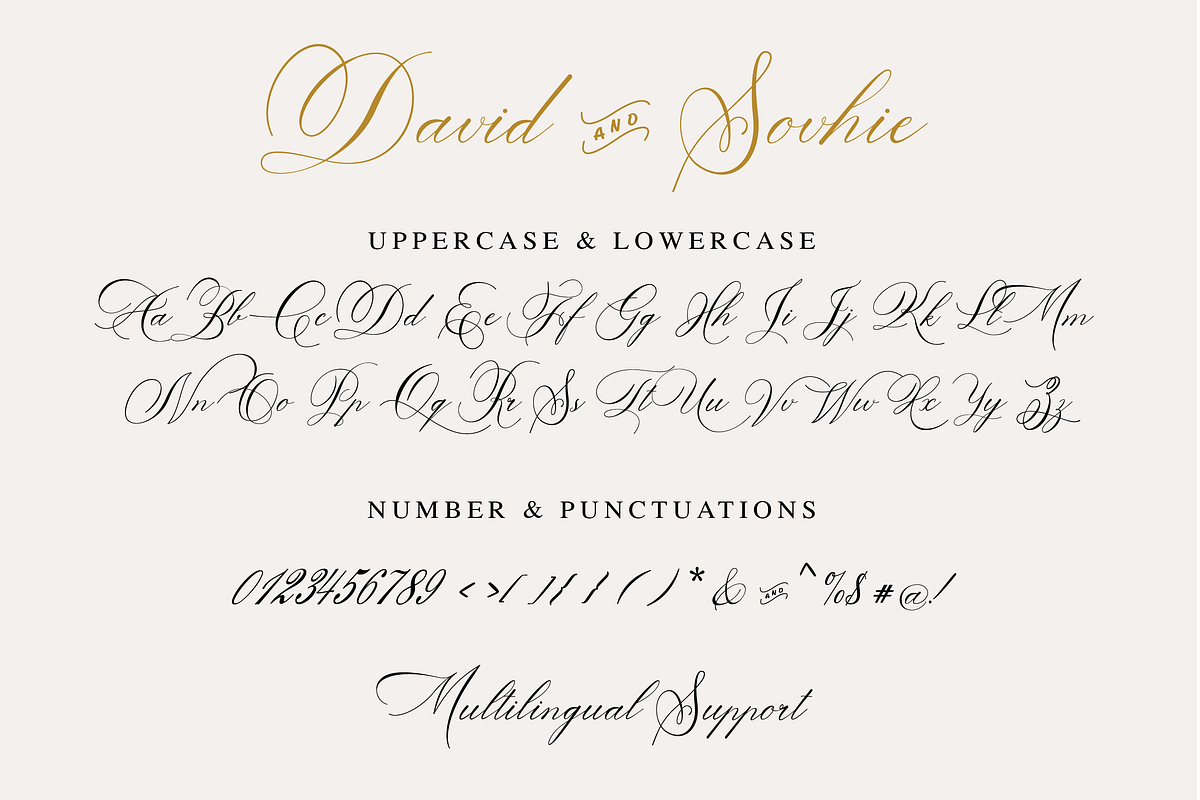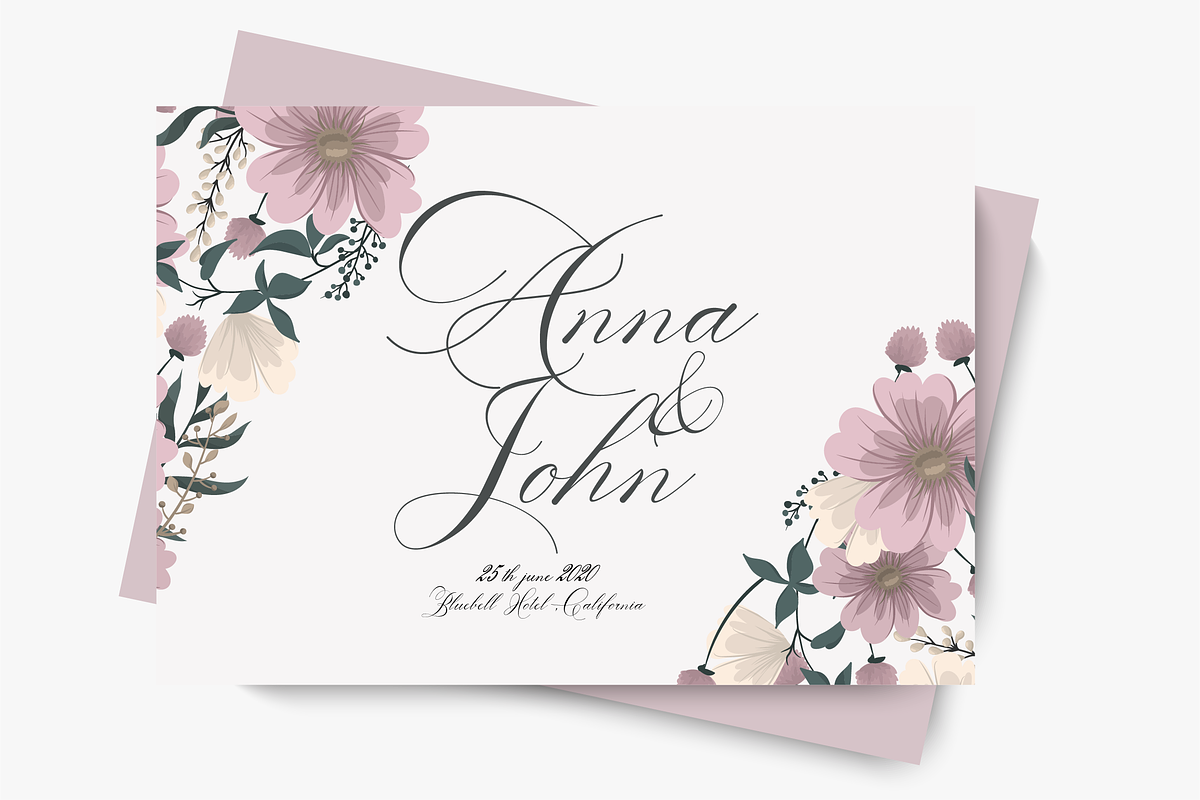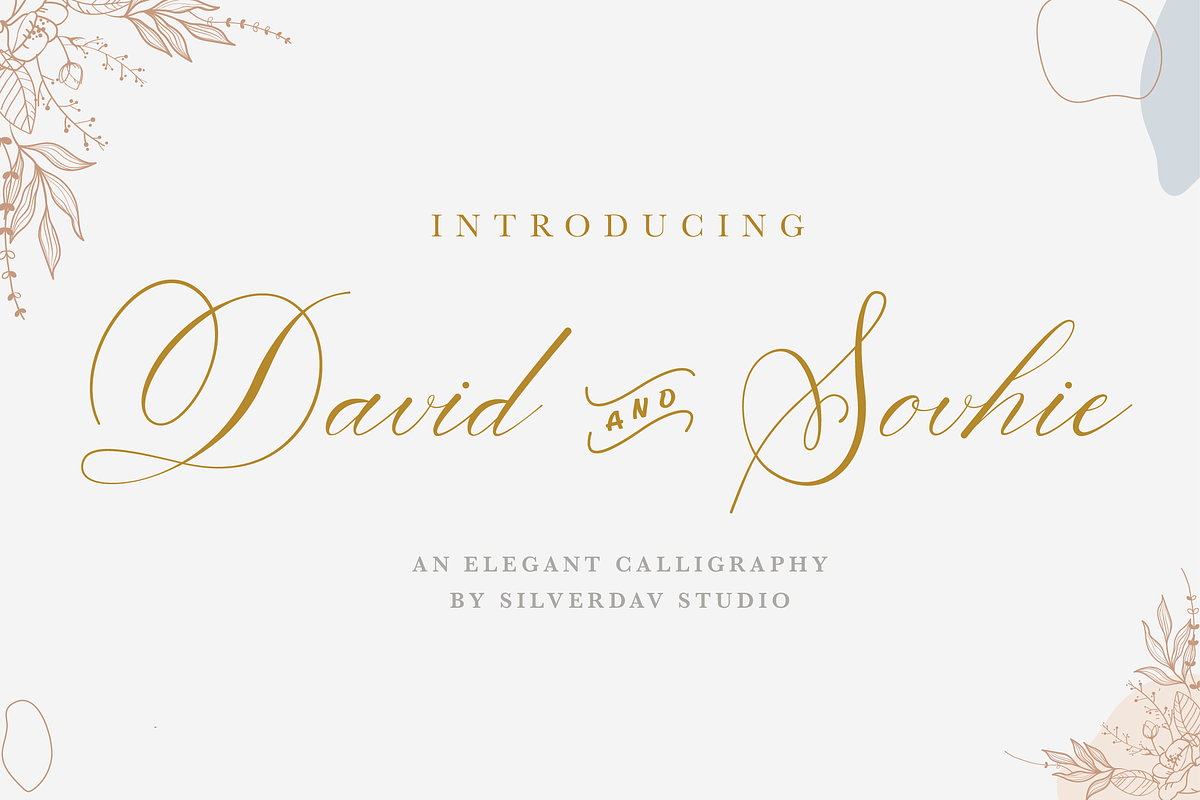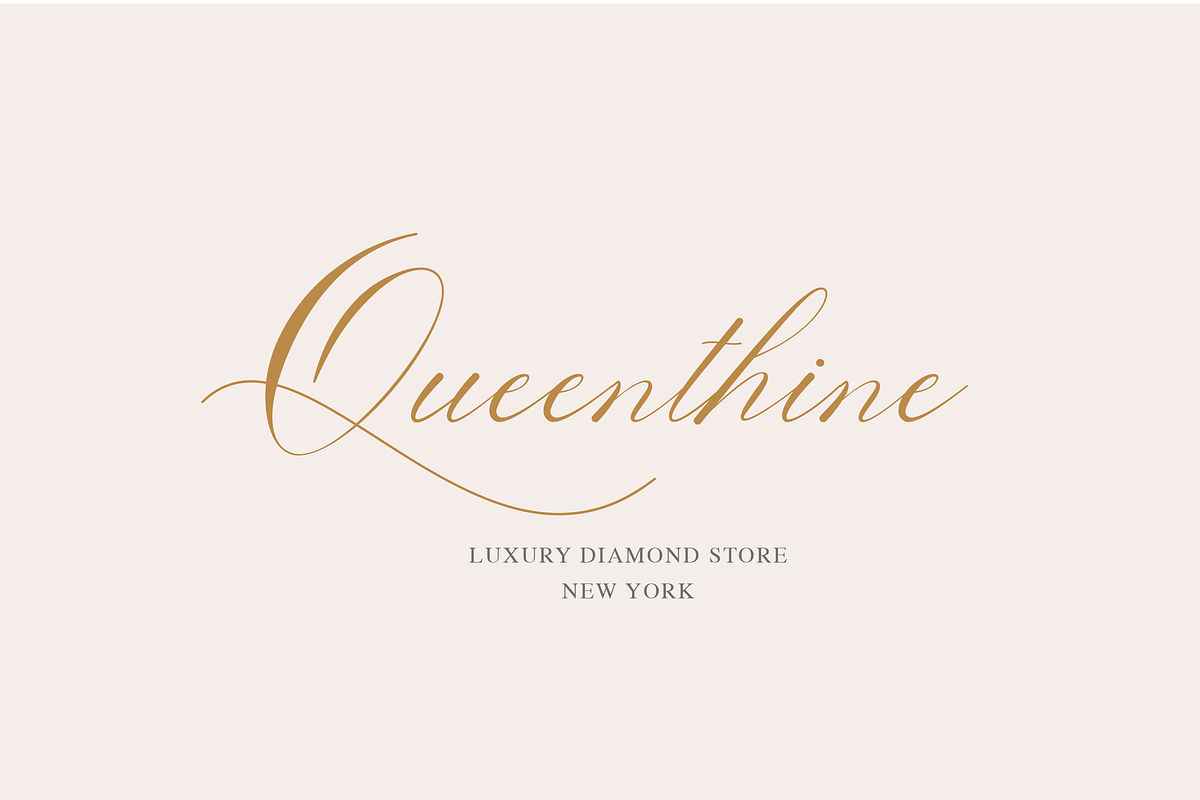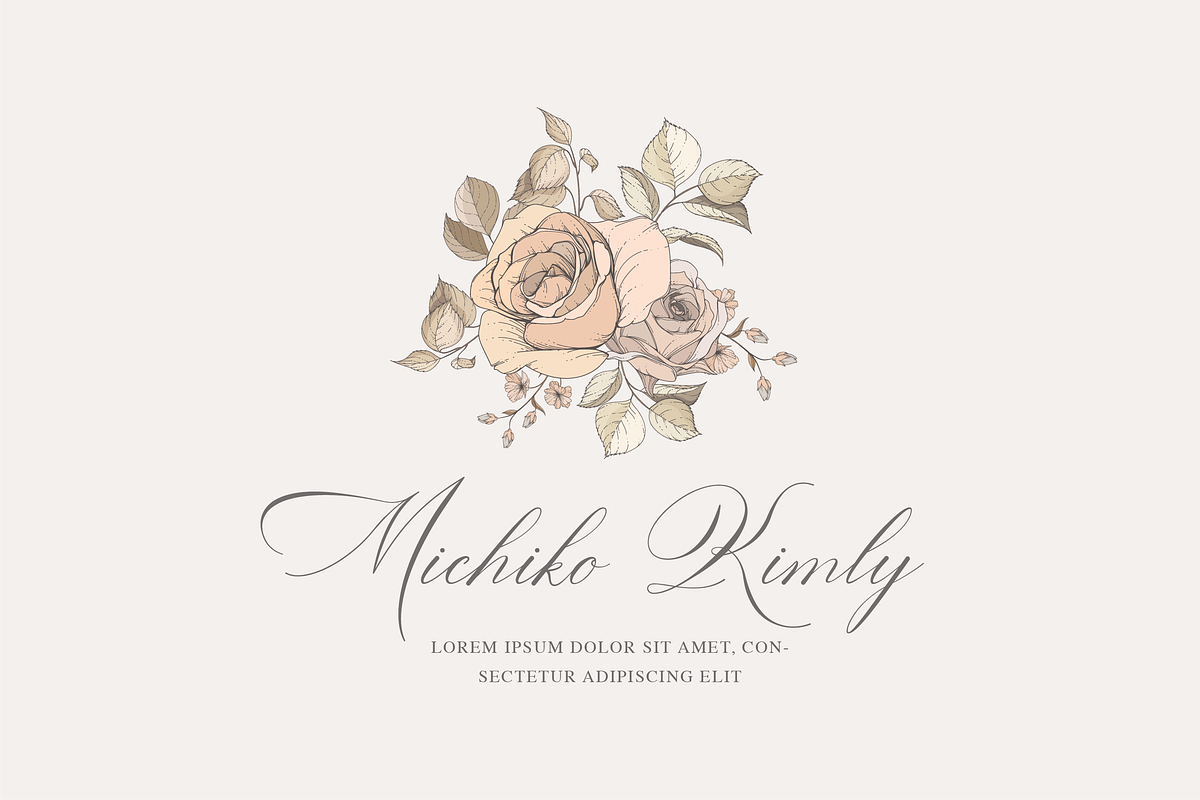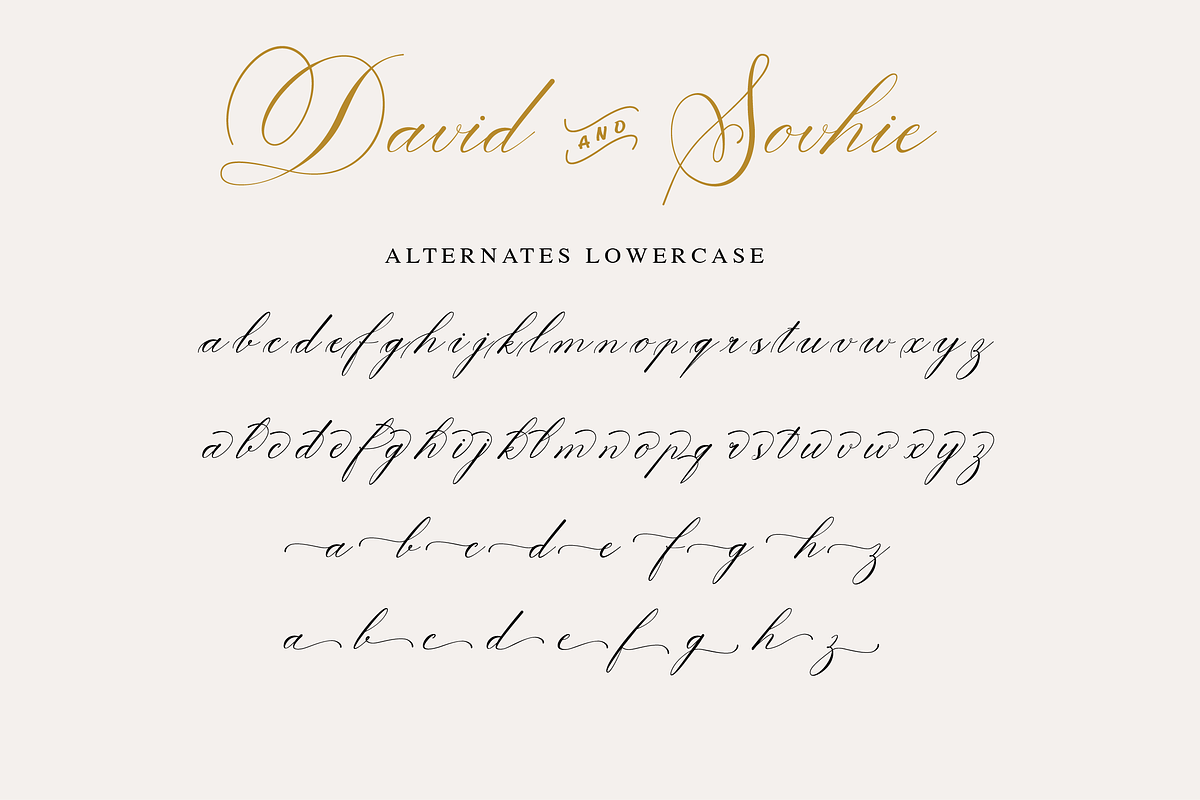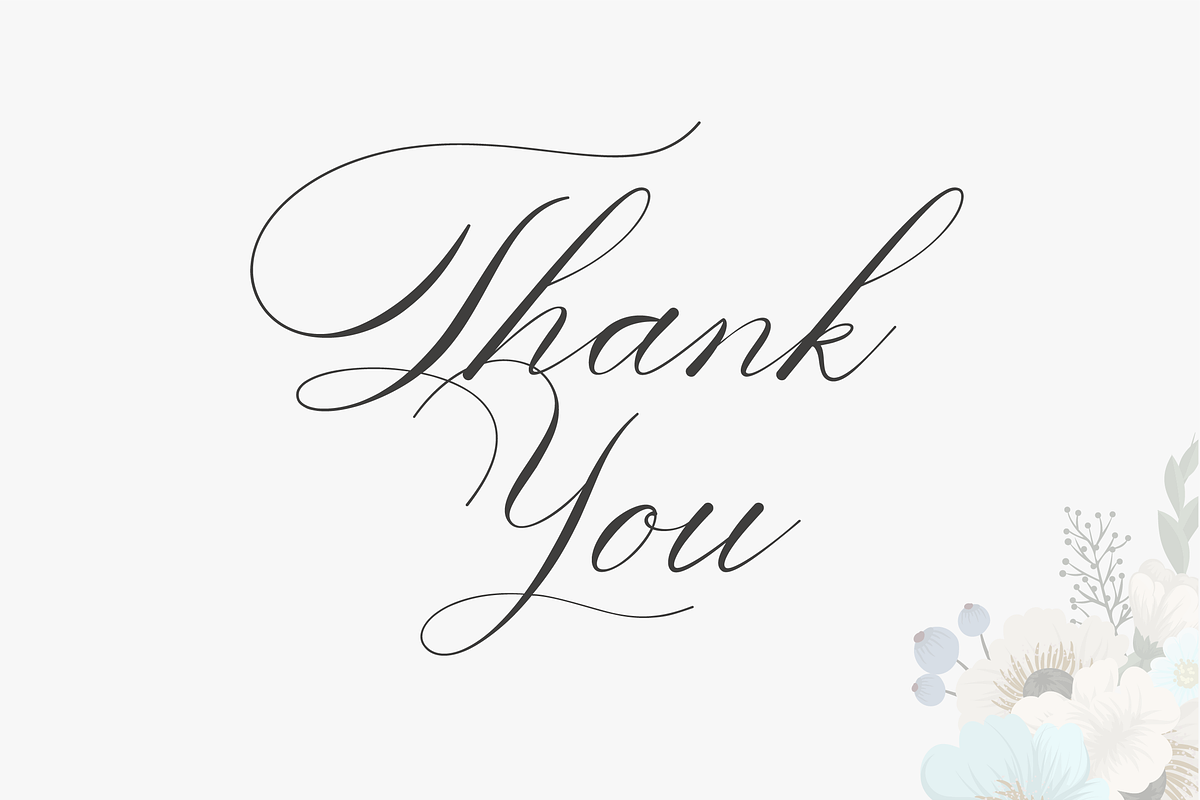
David and Sovhie
David and Sovhie Font are formal script fonts. Ideal for wedding invitations, magazines, social media, restaurant menus, greeting cards, birthday invitations, feature headings, and more.
This font comes with a complete set of lowercase and uppercase letters, various punctuation marks, numbers, and multilingual support.
- Ligature Characters
- Alternate Characters